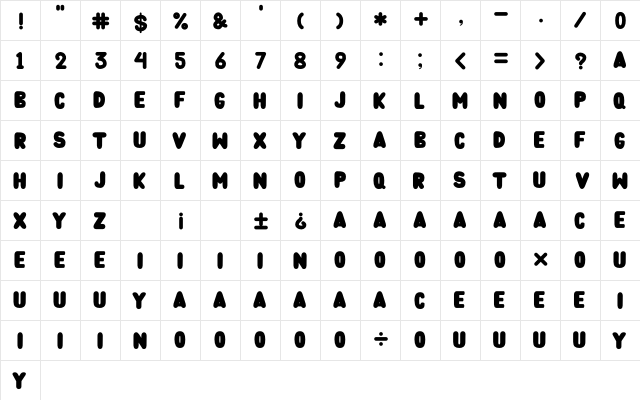
Bubble Water Regular
Design Context for Bubble Water Typeface
Bubble Water has an approachable, lighthearted character — its loose, expressive forms are well-suited to children's content, casual branding, and fun-first design.
Font Pairing: Pairs well with a rounded or humanist sans for body copy, maintaining the friendly tone without relying on Bubble Water to carry extended reading.
Pro Tip: Use Bubble Water at larger display sizes where its expressive character can land. Pair with a clean, simple sans for body copy to maintain readability.